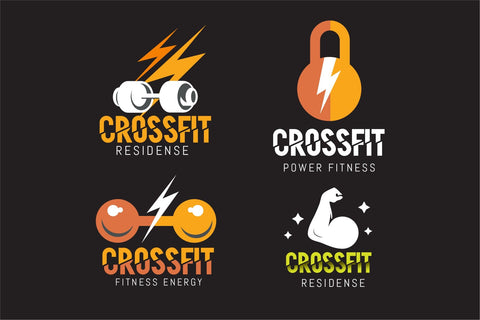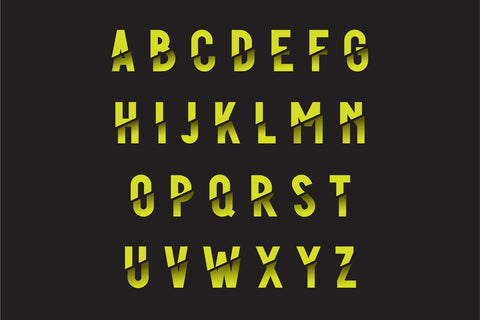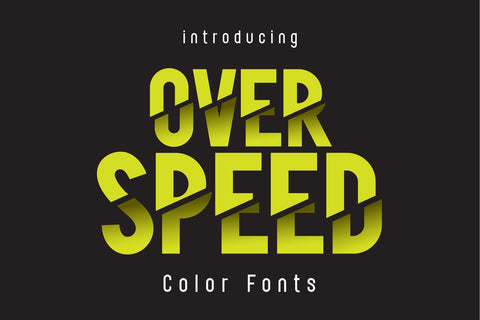
Over Speed Color Font
Over Speed is a unique color font with a cool design that can be used in a variety of ways. For publications, logos, business cards, or printed on t-shirts, this font will look outstanding in any situation. This font will be an incredible asset to your fonts’ library, as it has the potential to elevate any creation.